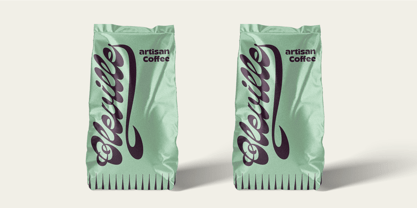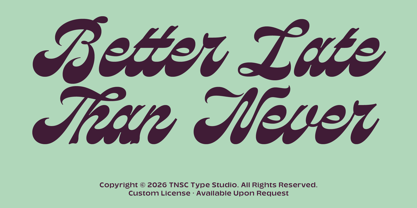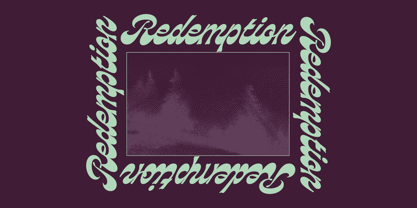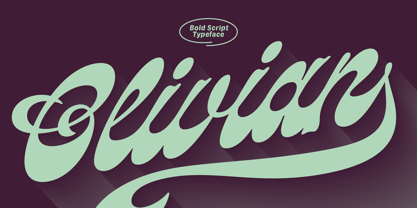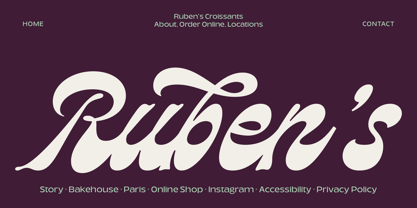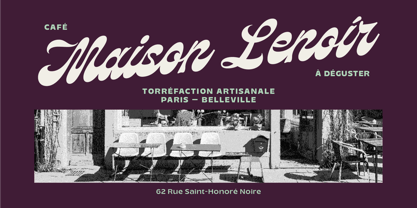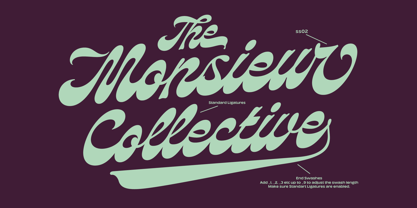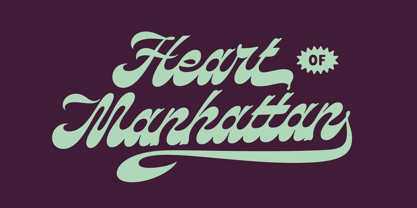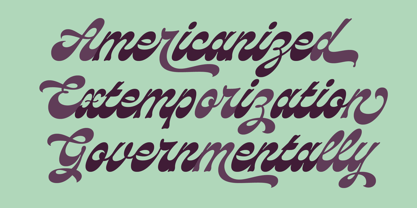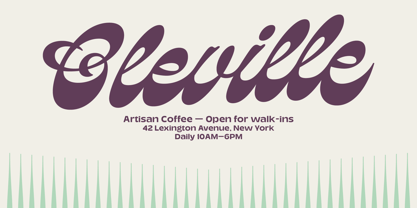
The Olivian Font Family was designed by Bagas Ferdiansah, Septianto Nugroho and published by The Native Saint Club. Olivian contains 1 styles. More about this family
Olivian is a bold retro script font inspired by vintage signage, classic Americana lettering, and modern editorial design. Perfect for branding, coffee shop logos, packaging, posters, album covers, headlines, and display typography. NOTE : Please Check the Help File first and for all the characters are also available, accessible in the Adobe Illustrator Glyphs Panel, or in Adobe Photoshop Character Open Type Panel. For upgrading license please contact me. Upgraded licenses are required for apps, books, television, commercial exhibition, film, gaming, print on demand products, etc. simply email me to : We hope you enjoy the font, please feel free to comment if you have any thoughts or feedback. Thanks for purchasing and have fun! Regards, The Native Saint Club
Designers: Bagas Ferdiansah, Septianto Nugroho
Foundry: The Native Saint Club